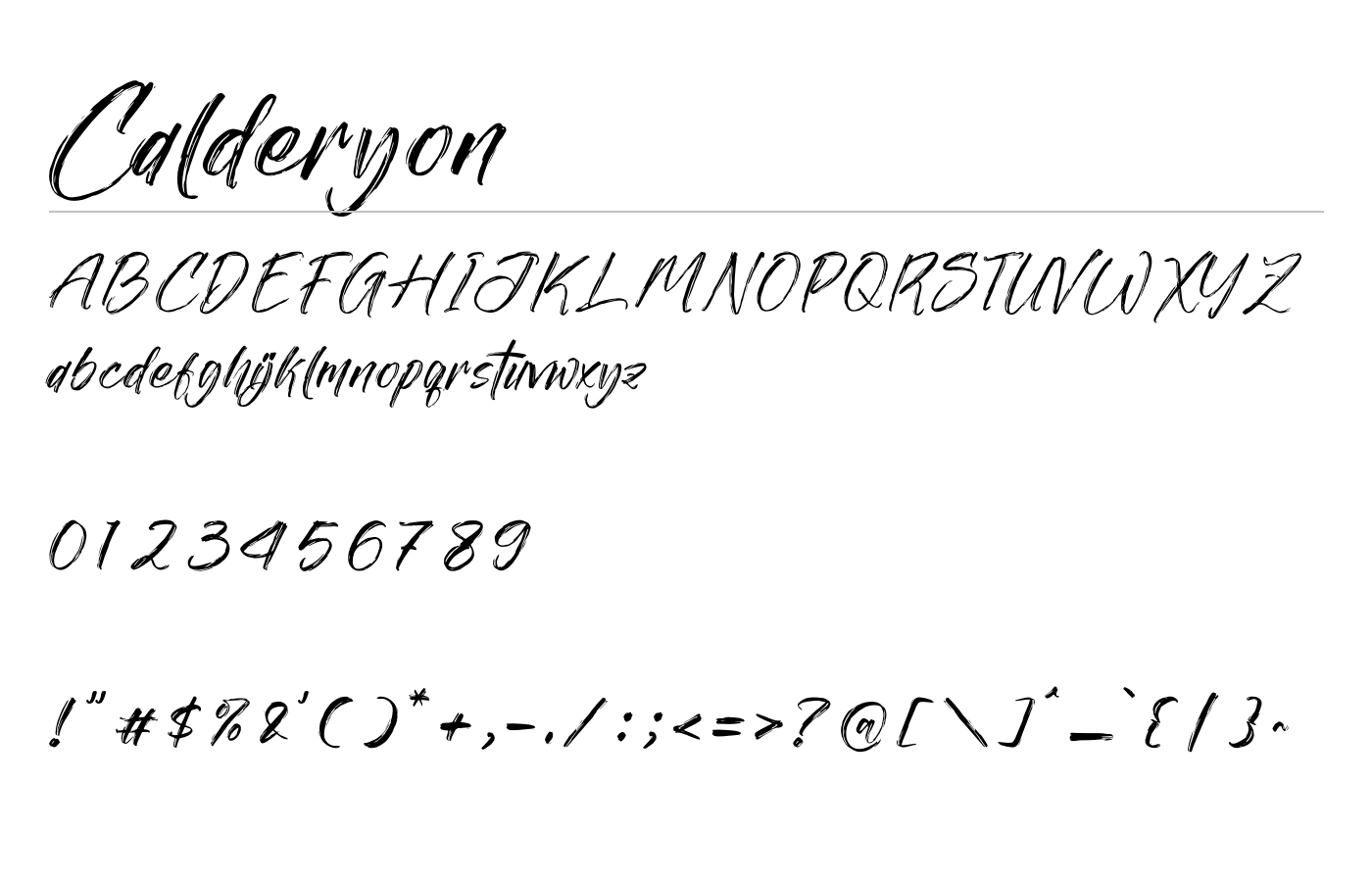
Calderyon is a lively and expressive script font that mimics natural brush strokes with its textured, slightly rough edges and varying stroke widths. Its tall, flowing letterforms with a casual yet elegant flair make it ideal for creative projects needing a personal, artistic touch, such as branding, invitations, and headlines. This font's dynamic style adds energy and sophistication while maintaining readability, perfect for both digital and print designs seeking a handcrafted feel.
Calderyon Font
About Calderyon Font